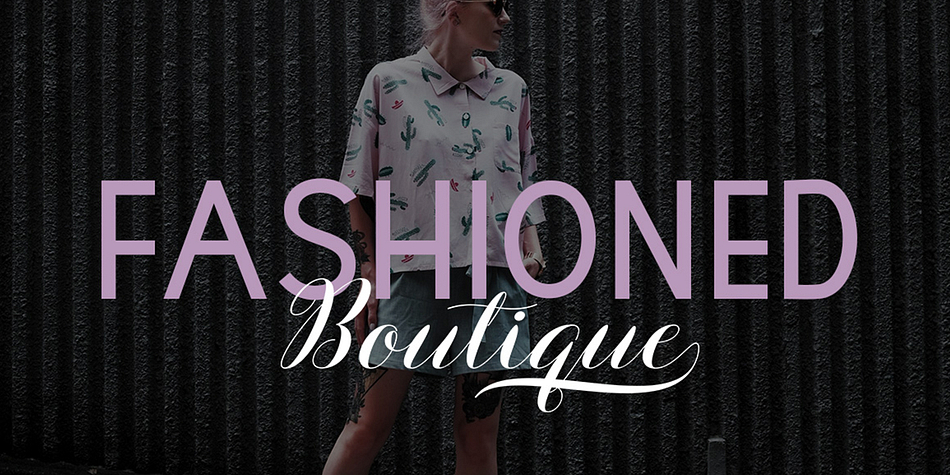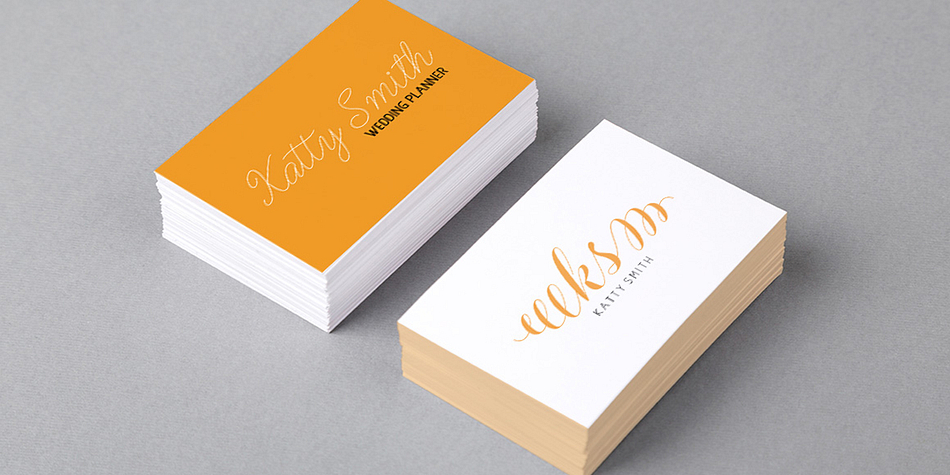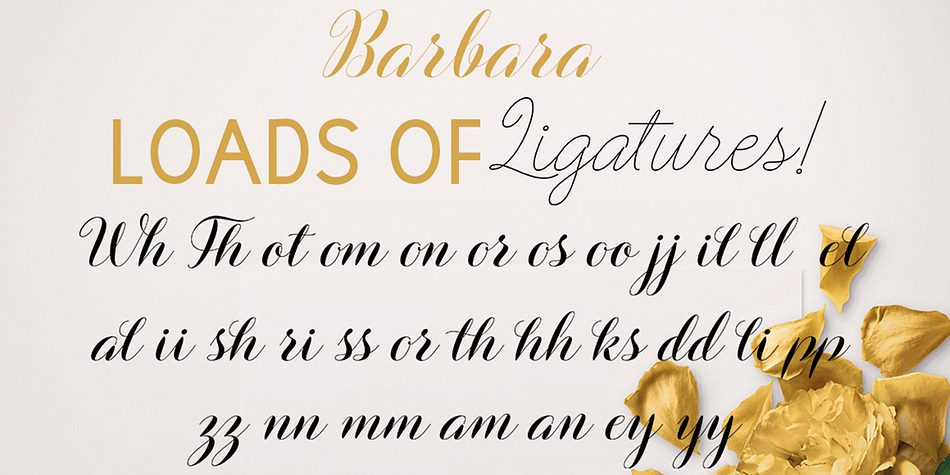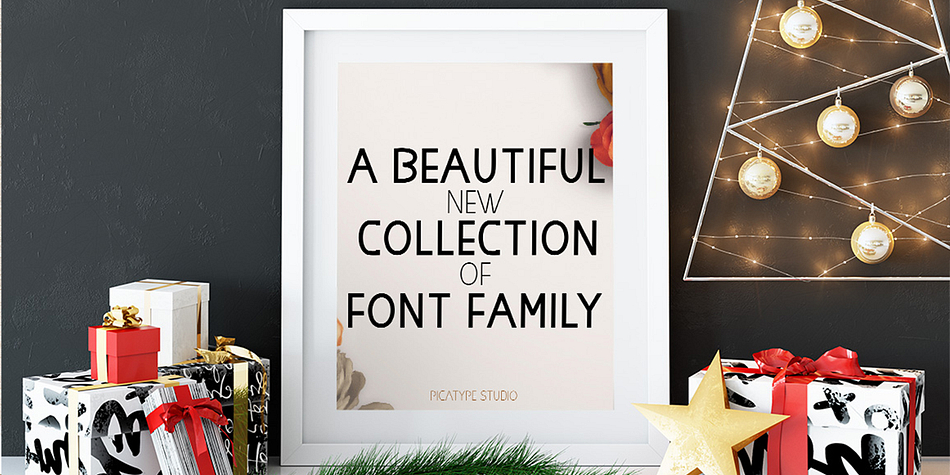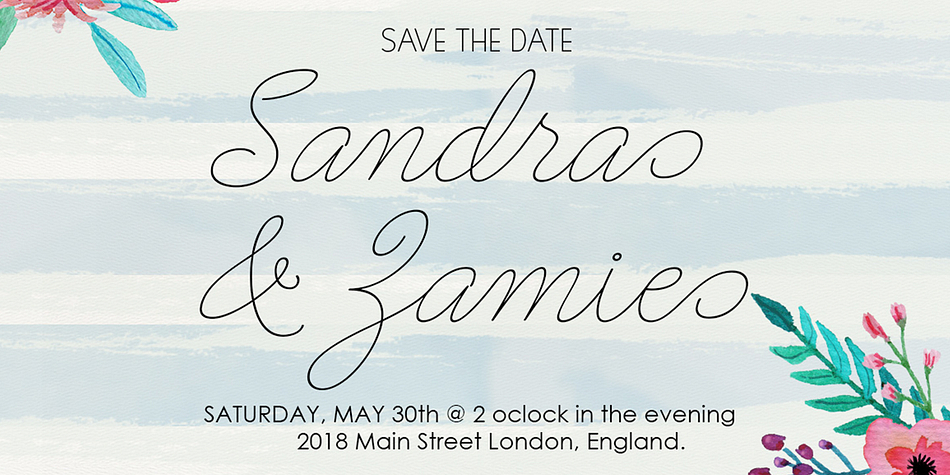
Barbara Script is a script, display sans and modern calligraphy font family. This typeface has eight styles and was published by Picatype Studio.
Introducing Barbara Script!
A new modern script font family, with elegant touch, casual and lovely. It comes with a handy set of opentype stylistic, use the beautiful ligatures, alternates and swashes. You need a program that supports OpenType features such as Adobe Illustrator CS, Adobe Photoshop CC, Adobe Indesign, Microsoft Word 2010. It is perfect for logo, greetings, branding, quotes, prints, invitations and crafting. All lowercase letters include alternates, beginning & end swashes, that makes the font look fabulous!